“I CREATE TO INSPIRE
& ENCOURAGE OTHERS
BY DRAWING LETTERS
IN THE MOST BEAUTIFUL WAY
BECAUSE PEOPLE COME ALIVE
WHEN THEY READ A MESSAGE
CRAFTED WITH LOVE”
Hi, I am Rahmad Sutopo, owner of Topo.intype. I’m a letterer, illustrator, designer bringing my imagination to life on a paper (and beyond). I’ve always been very passionate about typography and graphic design since 2016, but the inflection point come once i began combining two of my favorite passion, drawing type and illustration. I’ve developed my signature style, TYPO x ILLUSTRATION, through my wordscapes (hand lettering art integrated into unique landscapes).
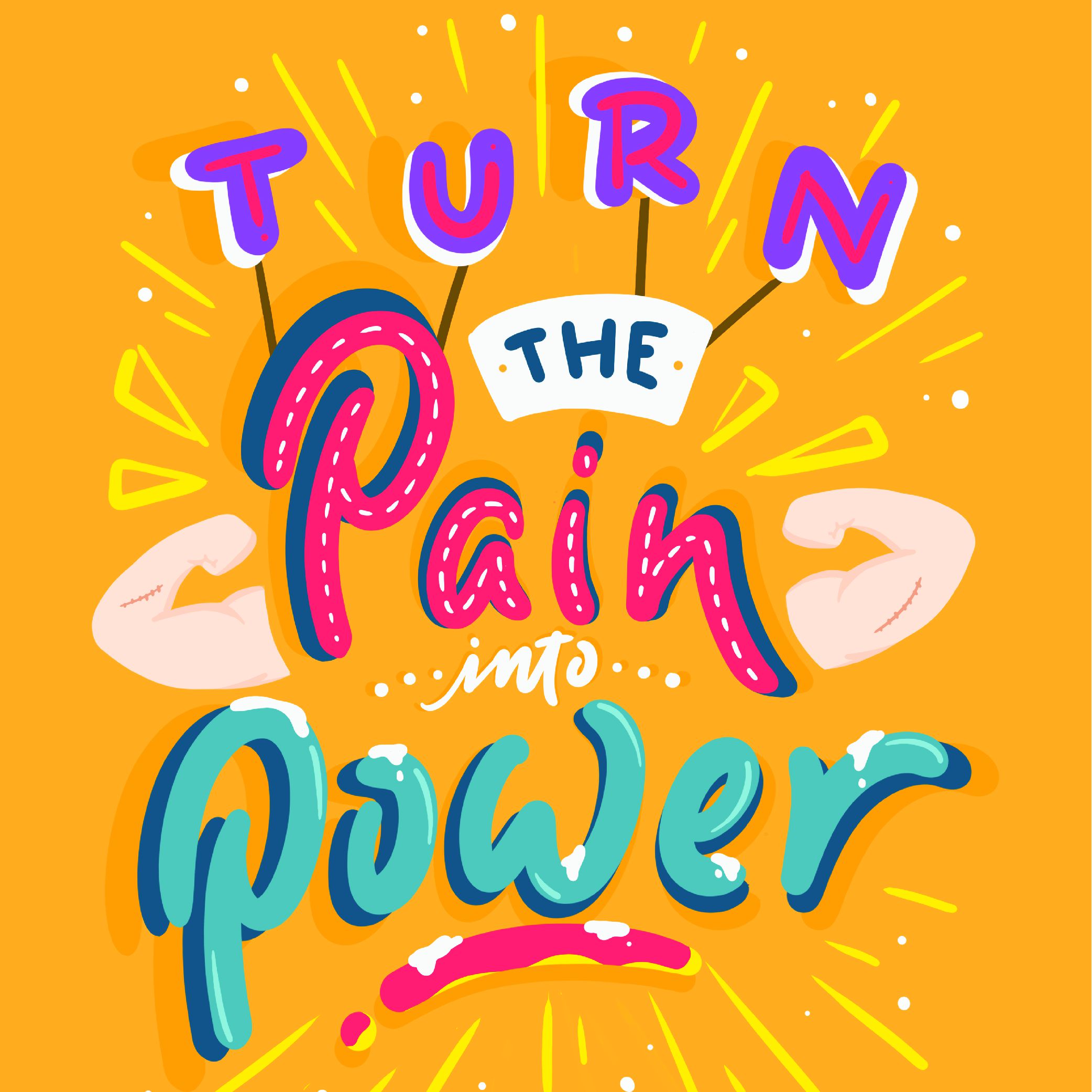
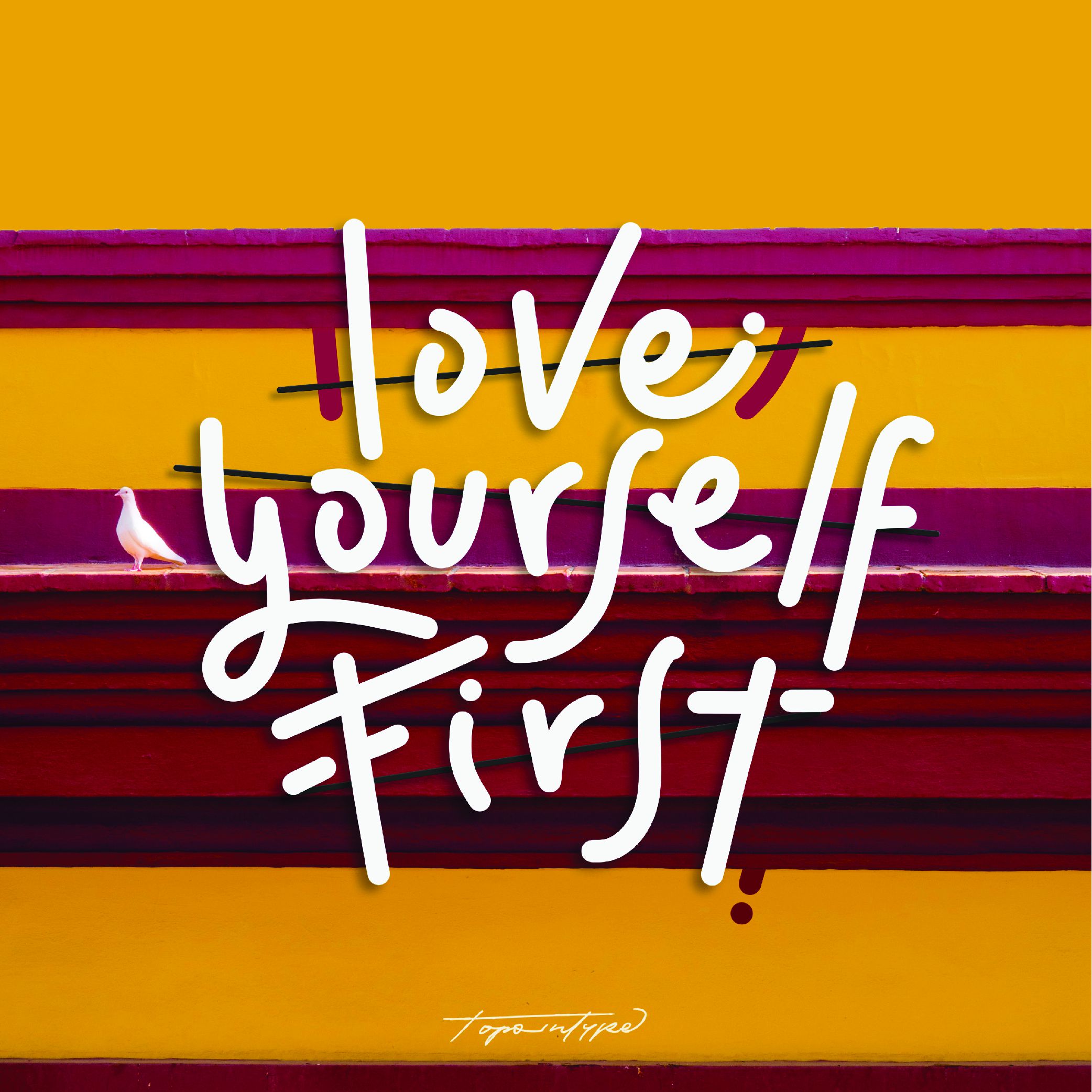
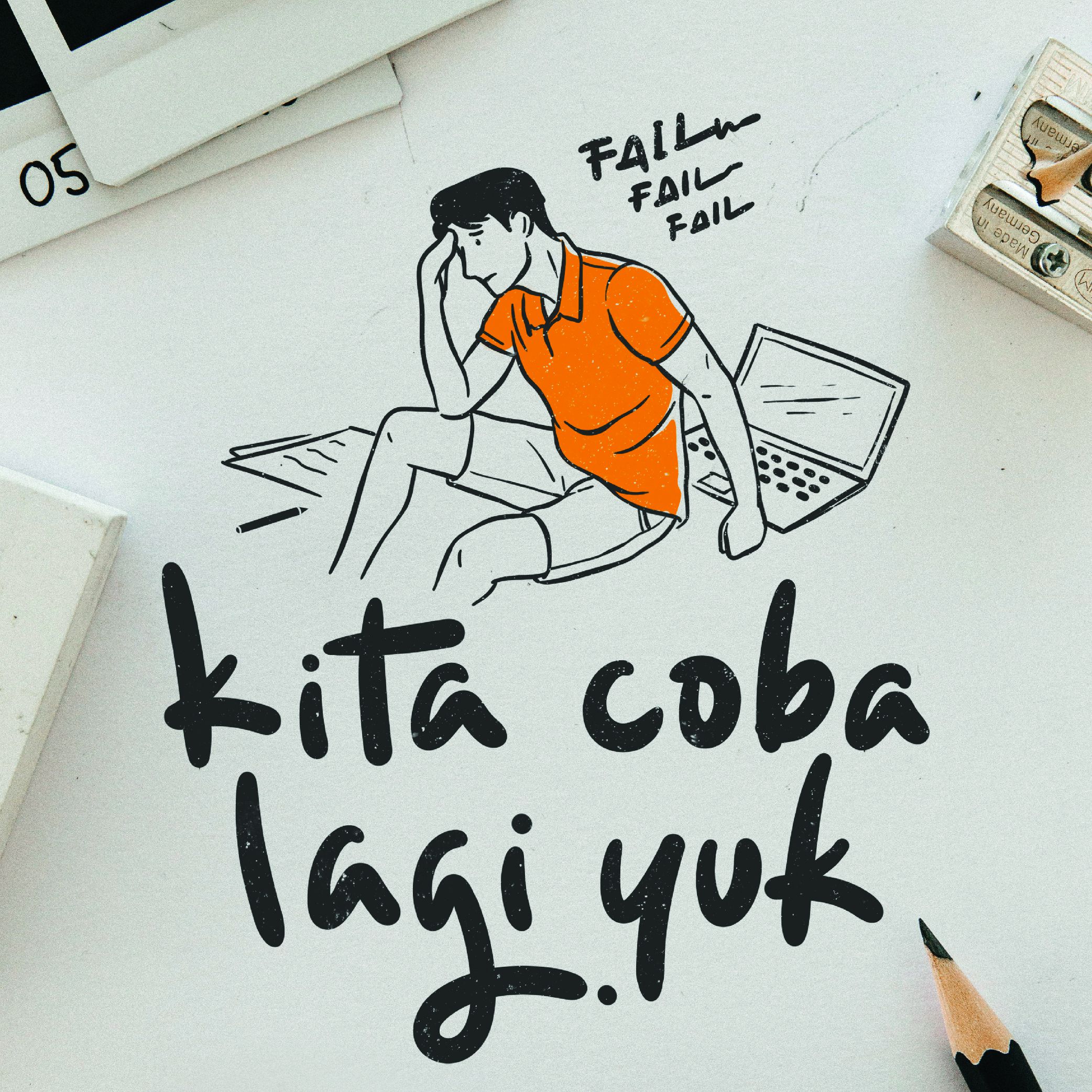
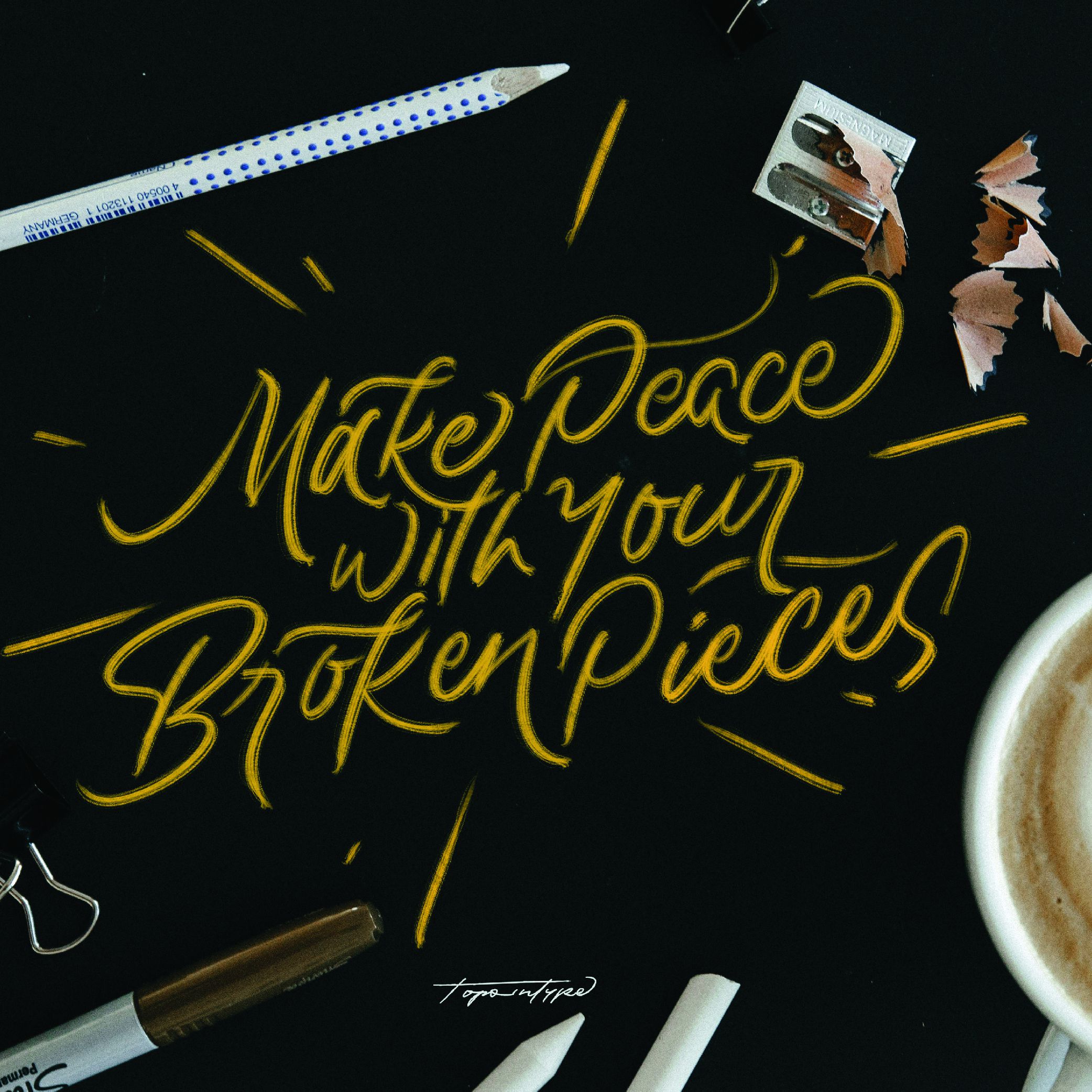
Lettering is another way to say what is inside my mind and share it to public in a beautiful way.
I create to inspire and encourageother by drawing letters